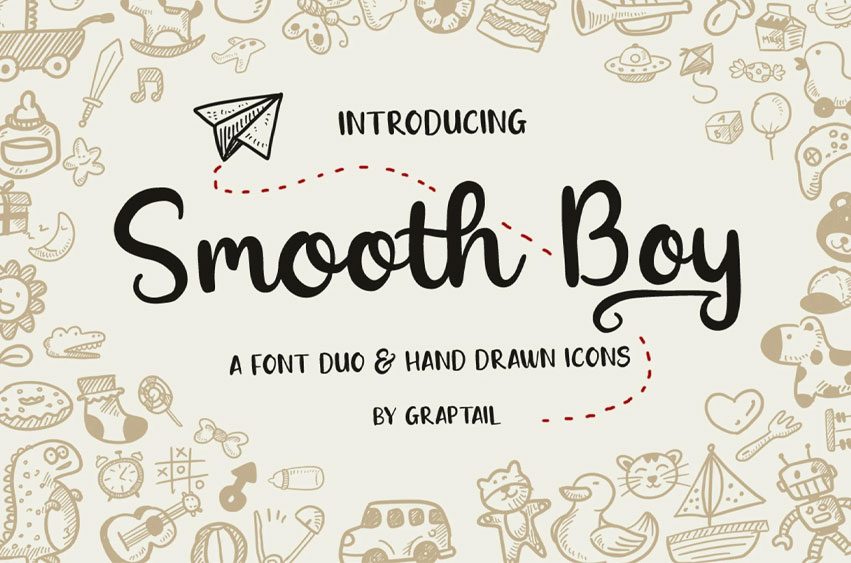
Smooth Boy Font
Smooth Boy Font is a funny little font duo with a very good amount, comes with illustrations and icons that can add joy, is easy to use, and you can combine to get results that inspire your work.